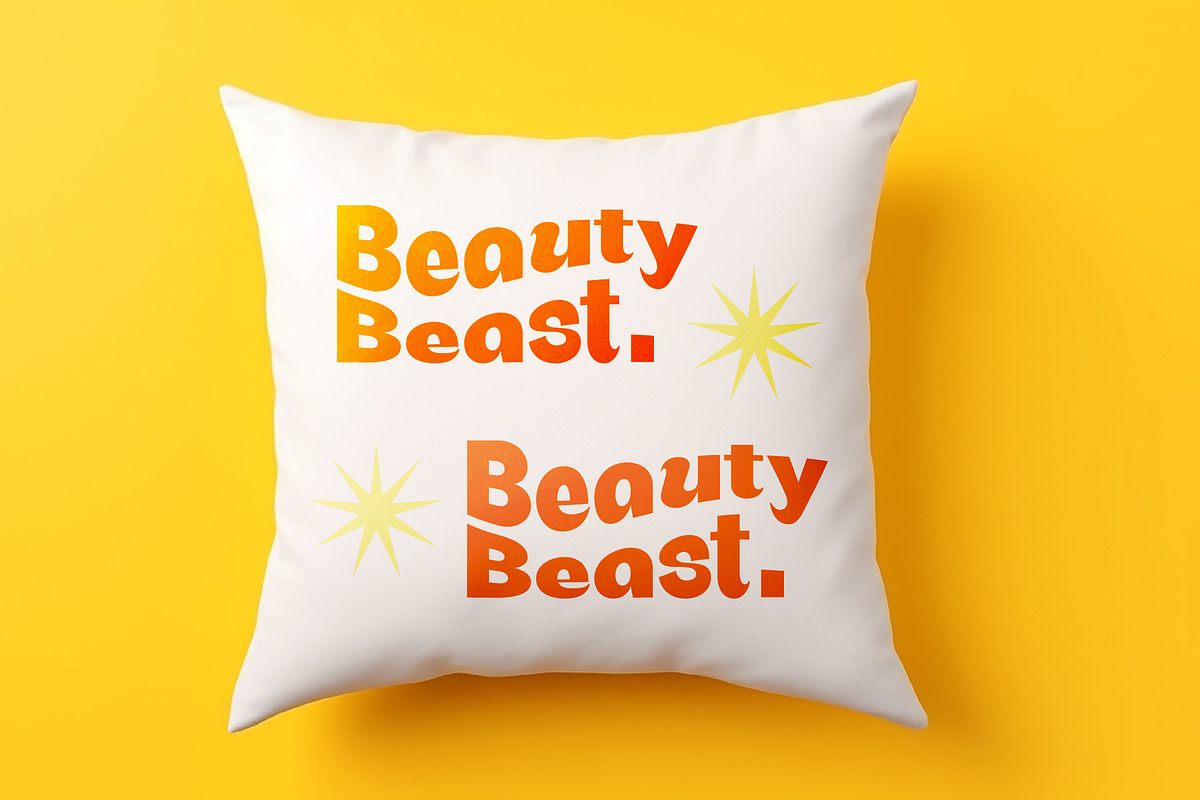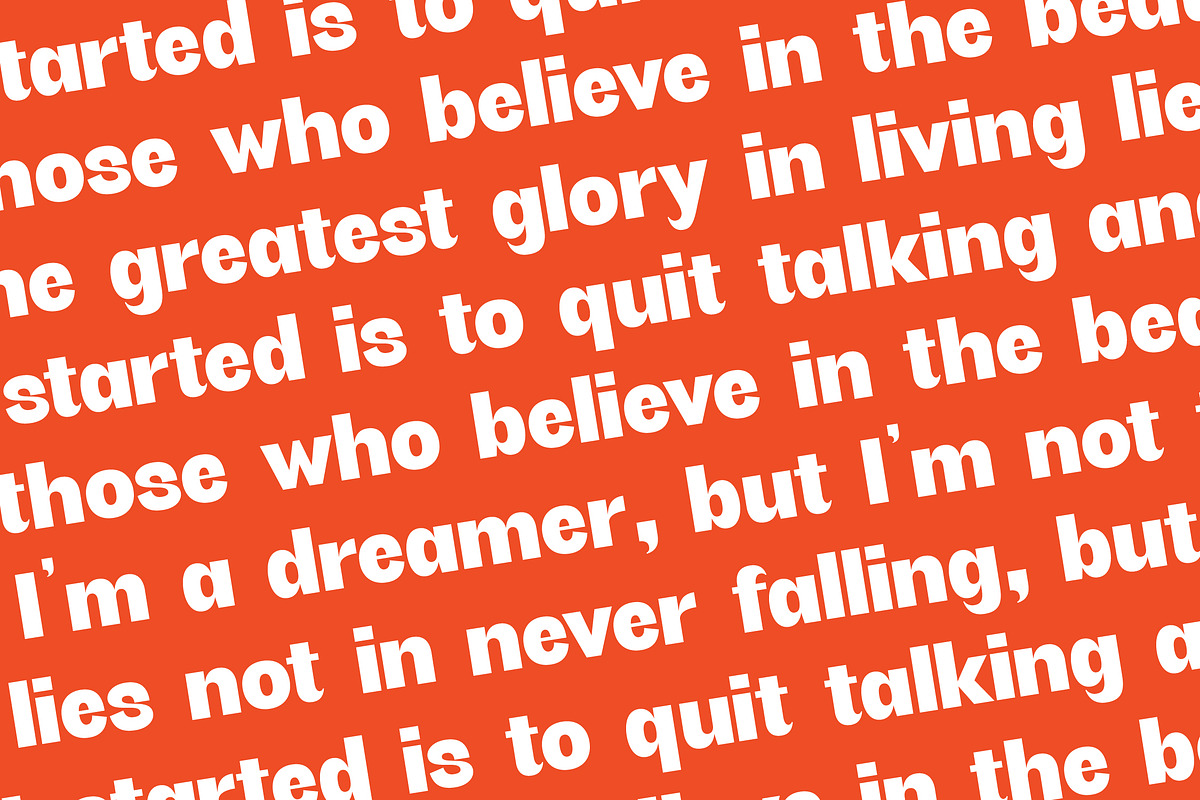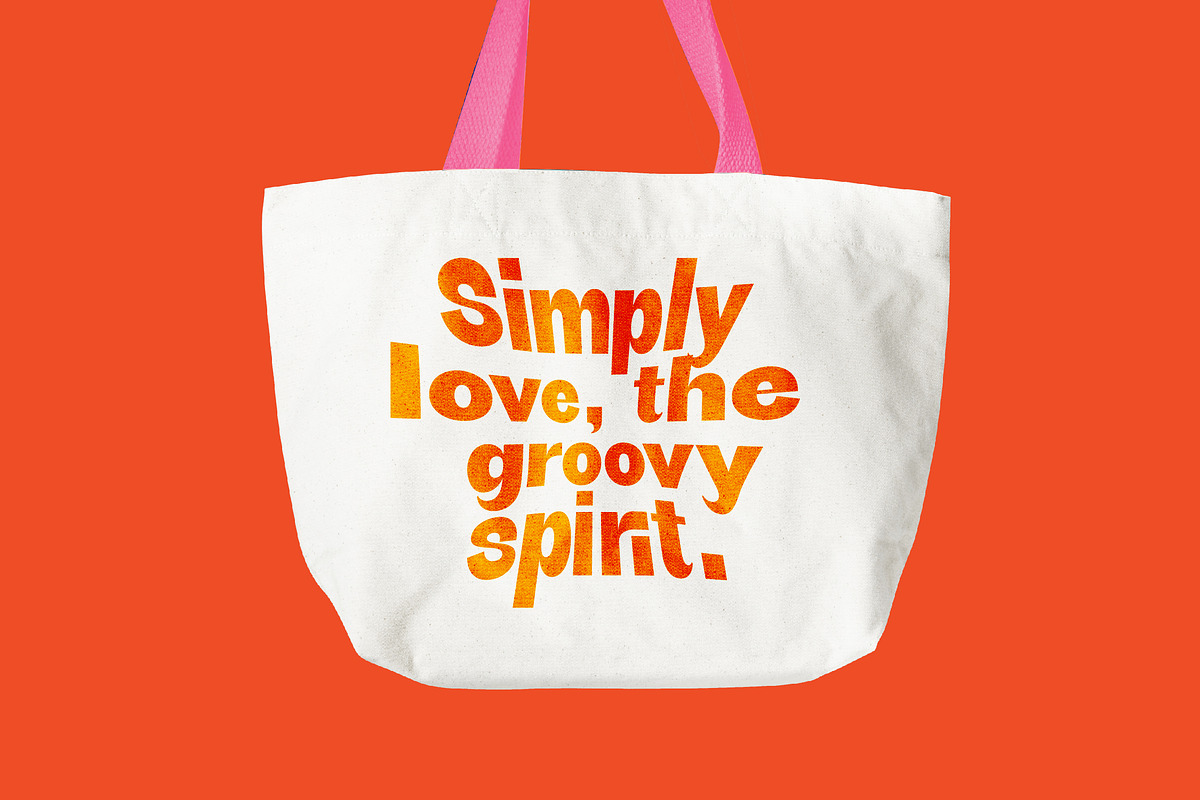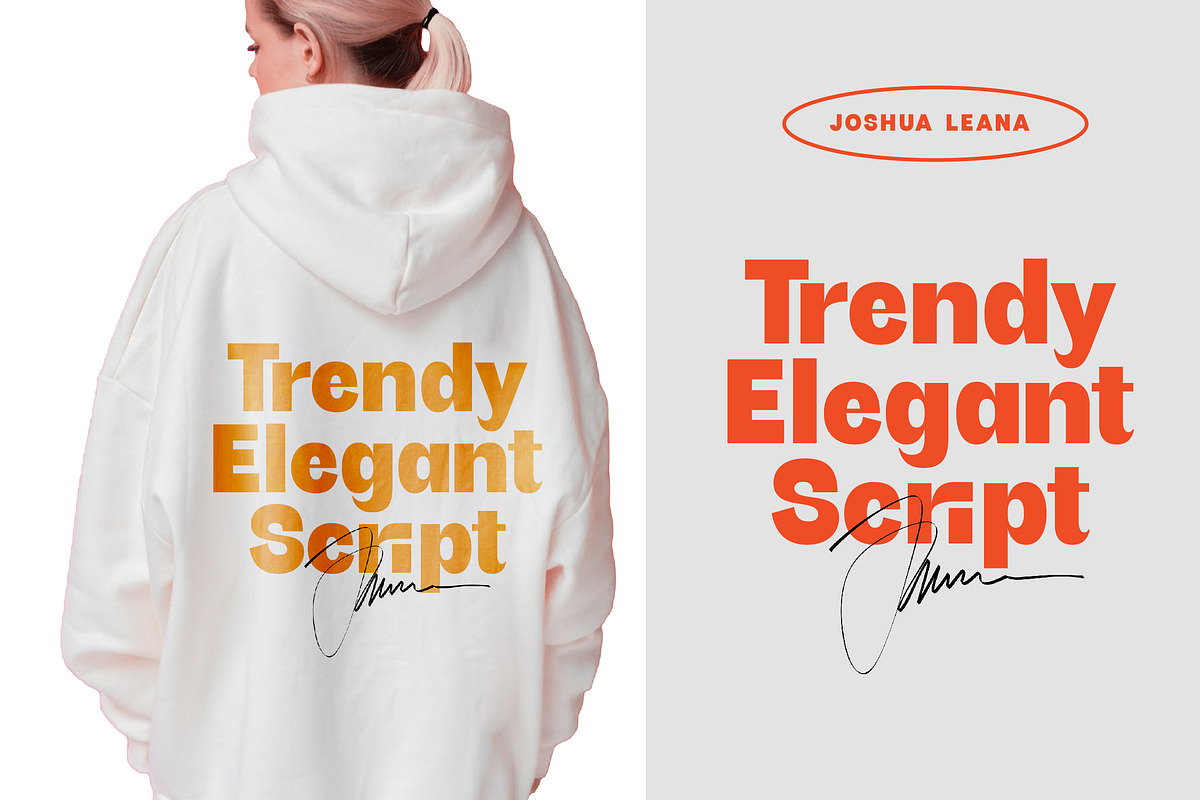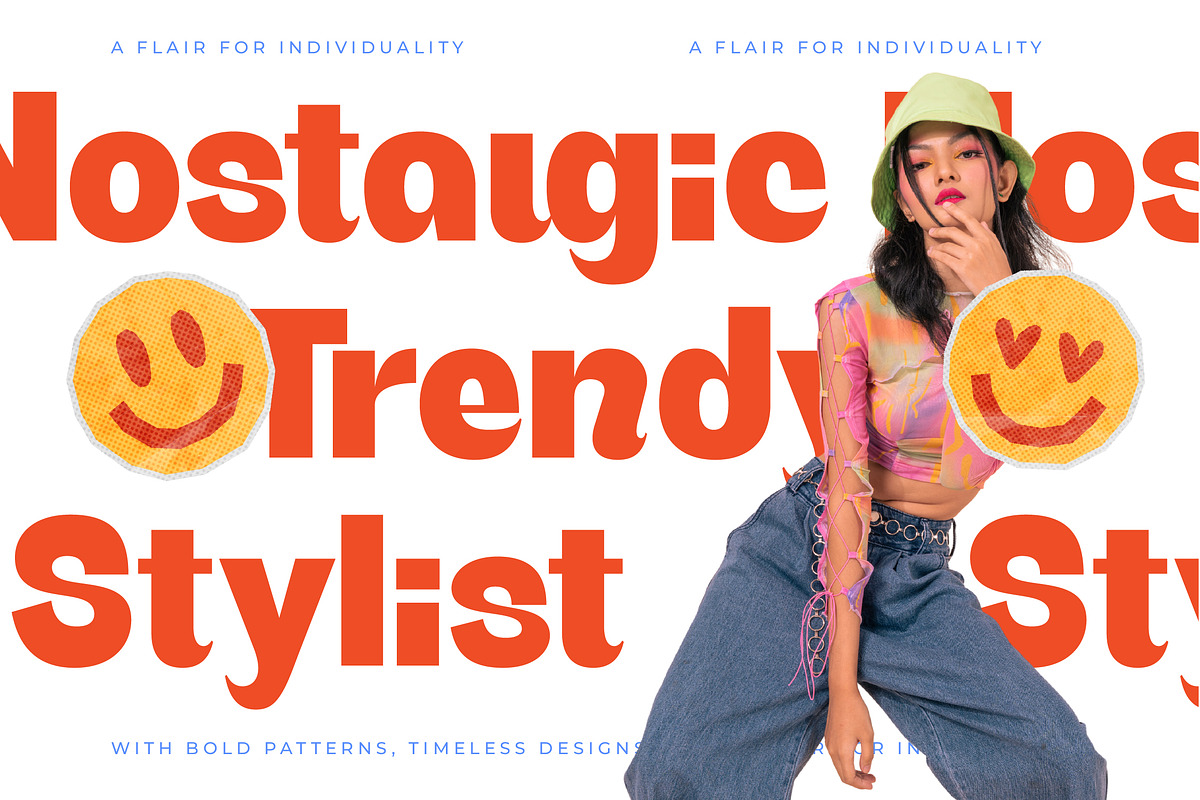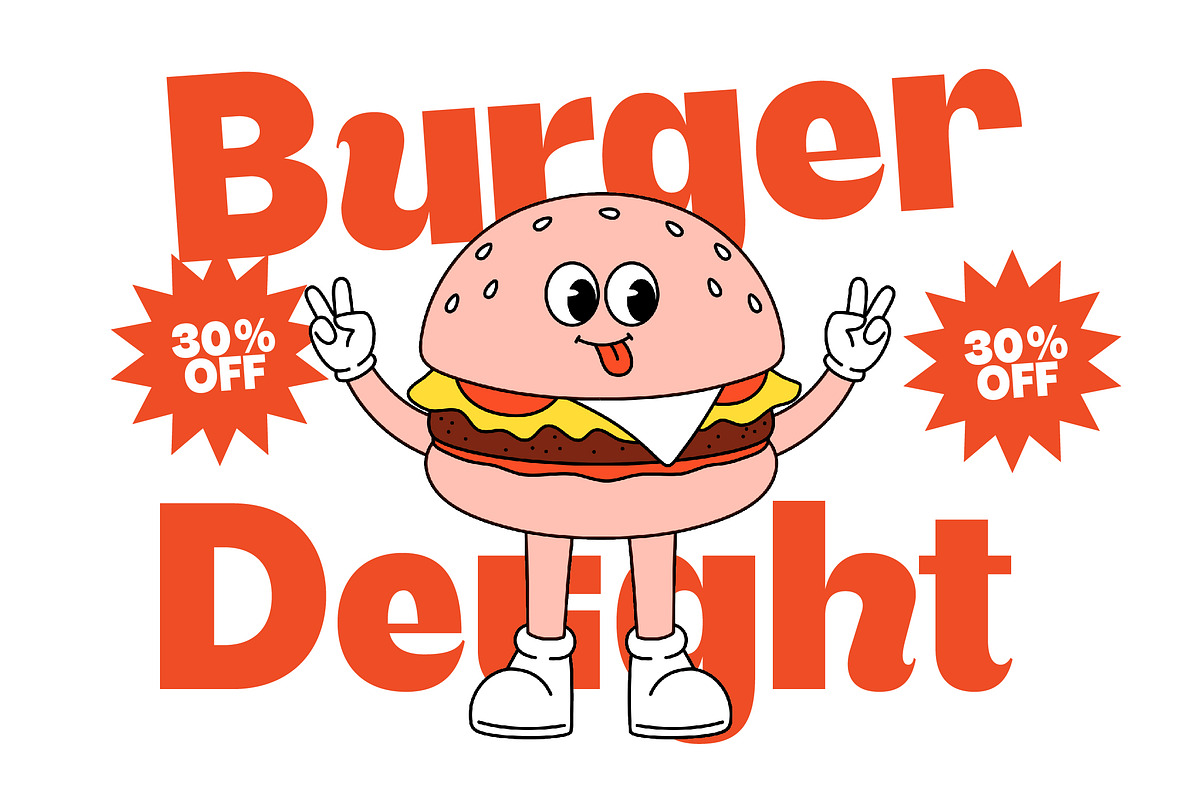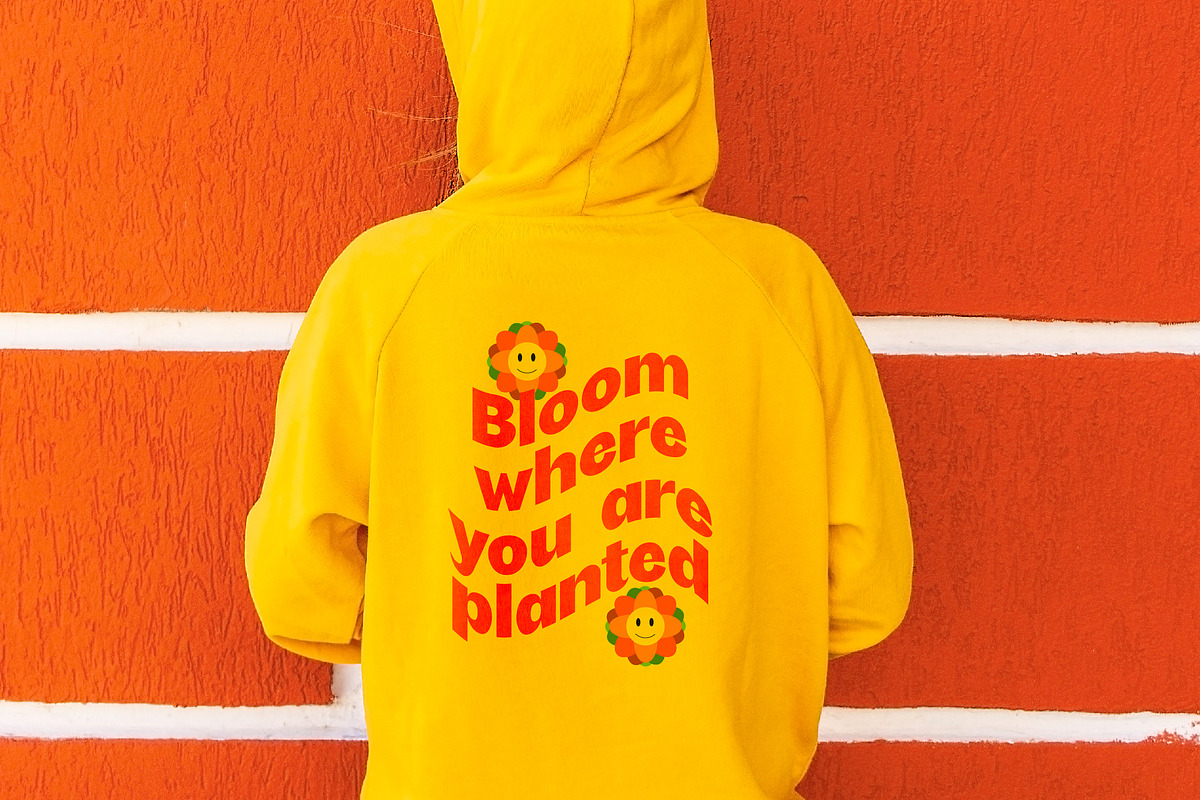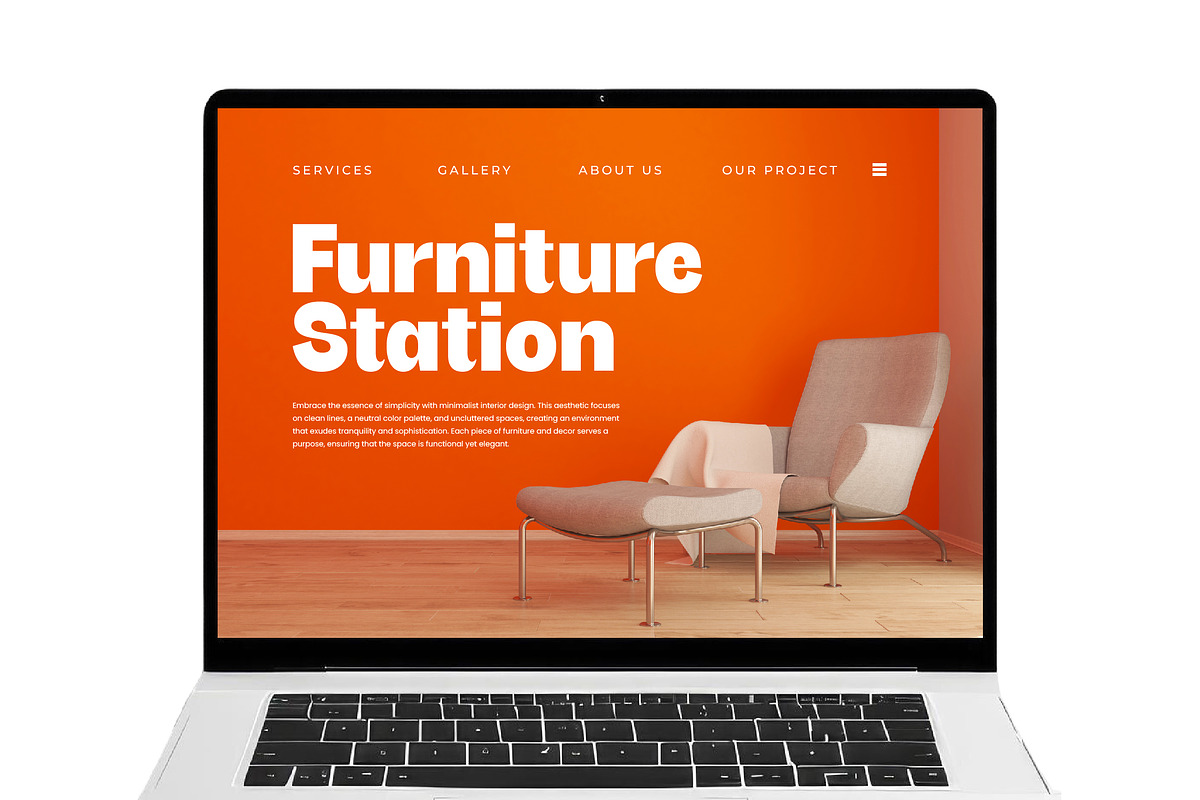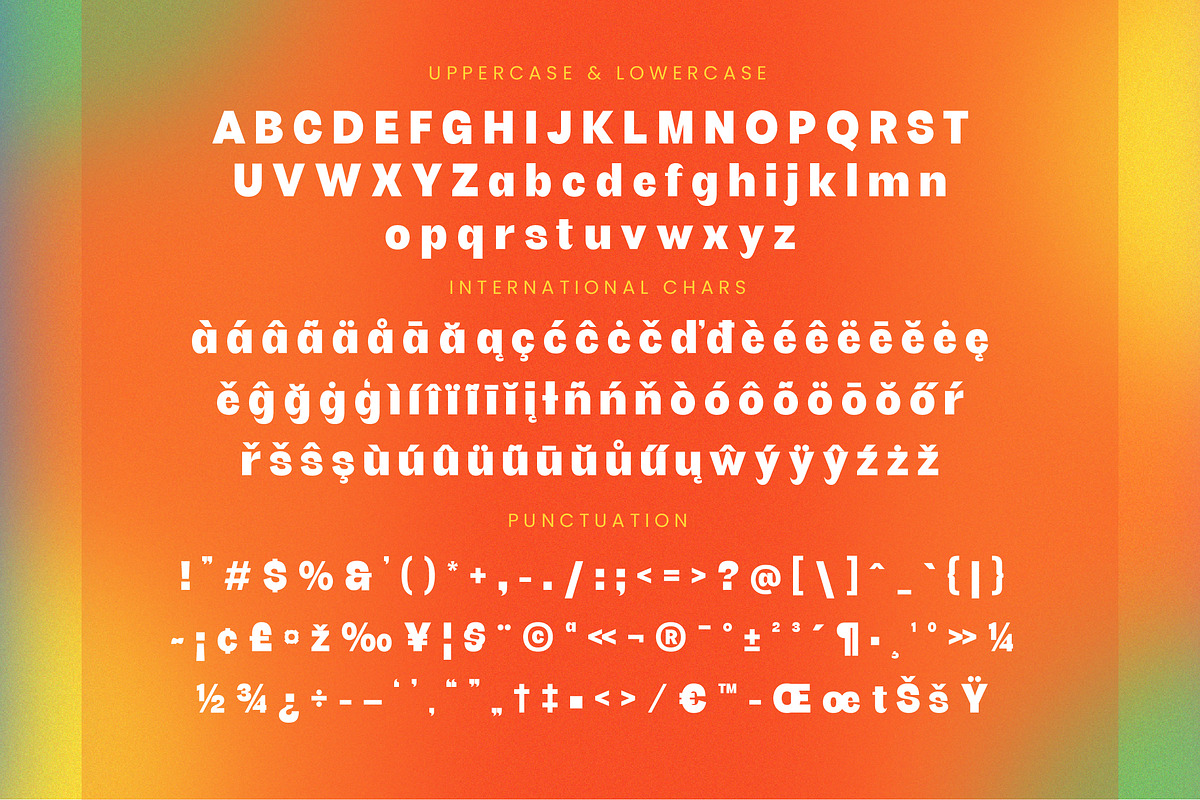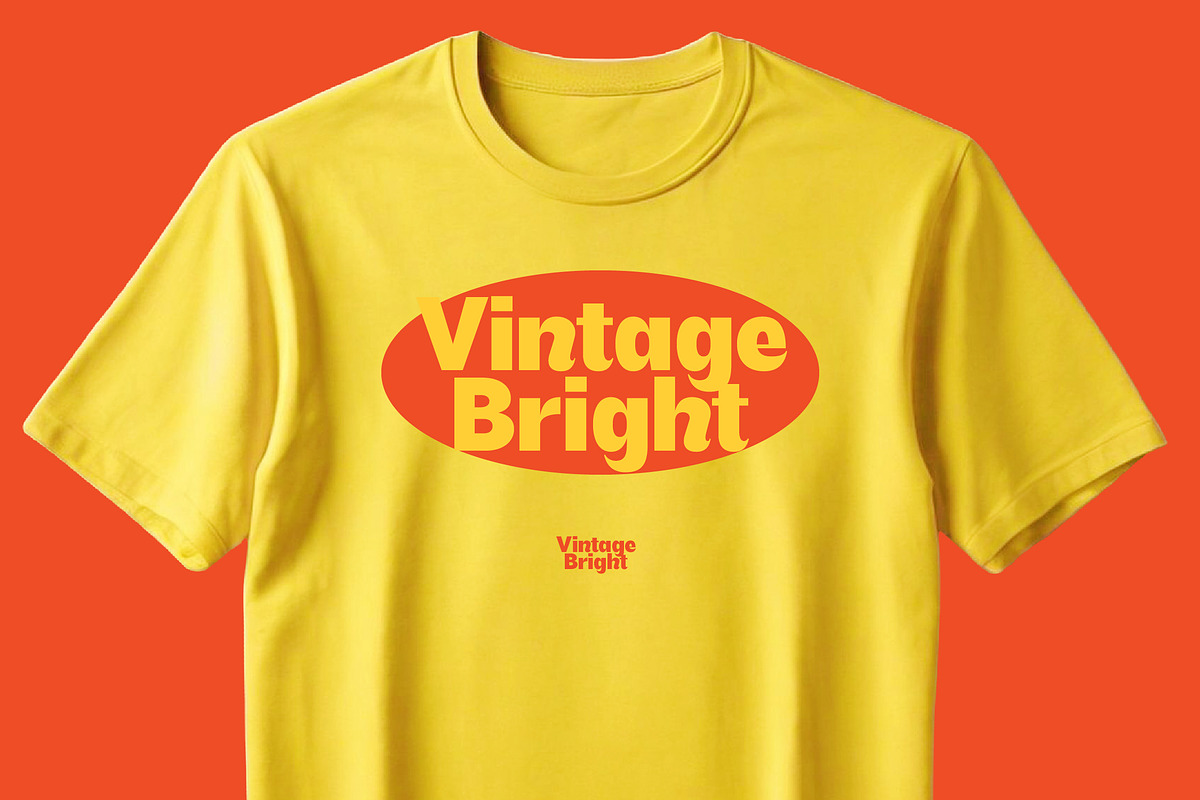
Bright Giftak Retro Display Font
Step into a world of vibrant energy and playful sophistication with Bright Giftak, a typeface designed to make every word pop with personality. This font captures a unique balance of vintage charm and modern boldness that instantly commands attention.
Drawing inspiration from the groovy aesthetics of the 1970s and the whimsical world of vintage cartoon mascots, Bright Giftak evokes a sense of nostalgic joy. It carries the warmth of sun-drenched afternoons and the bold spirit of classic advertising, creating a visual atmosphere that is both familiar and fresh.
Exhibiting a confident and quirky persona, this modern serif display is engineered for maximum branding impact. It transcends the typical luxury typography by adding a layer of approachability, making it a versatile editorial font or a standout high-contrast serif for projects that need a human touch.
Aligned perfectly with the current modern serif trend, this typeface addresses the growing demand for character-driven typography. Designers looking for editorial display fonts will find that it bridges the gap between structured elegance and expressive, fun-loving design movements.
This versatile family is an ideal choice for high-impact logo design and bold packaging that needs to stand out on the shelf. Its unique flair also makes it perfect for creative branding, distinctive editorial layouts, and even unconventional fashion or wedding collateral that dares to be different.
The package is highly functional, including unique ligatures, swashes, and stylistic alternates to help you customize your designs. Comprehensive support for multilingual projects and a full suite of international characters ensures your message reaches a global audience with ease.